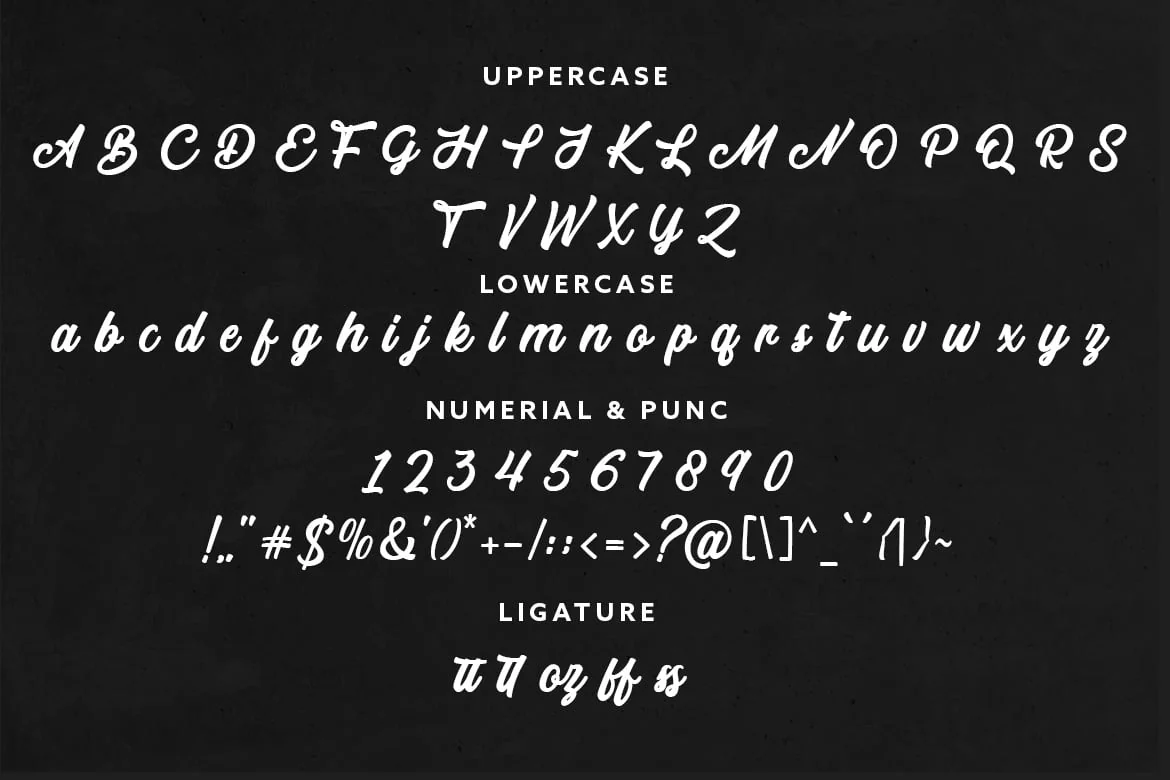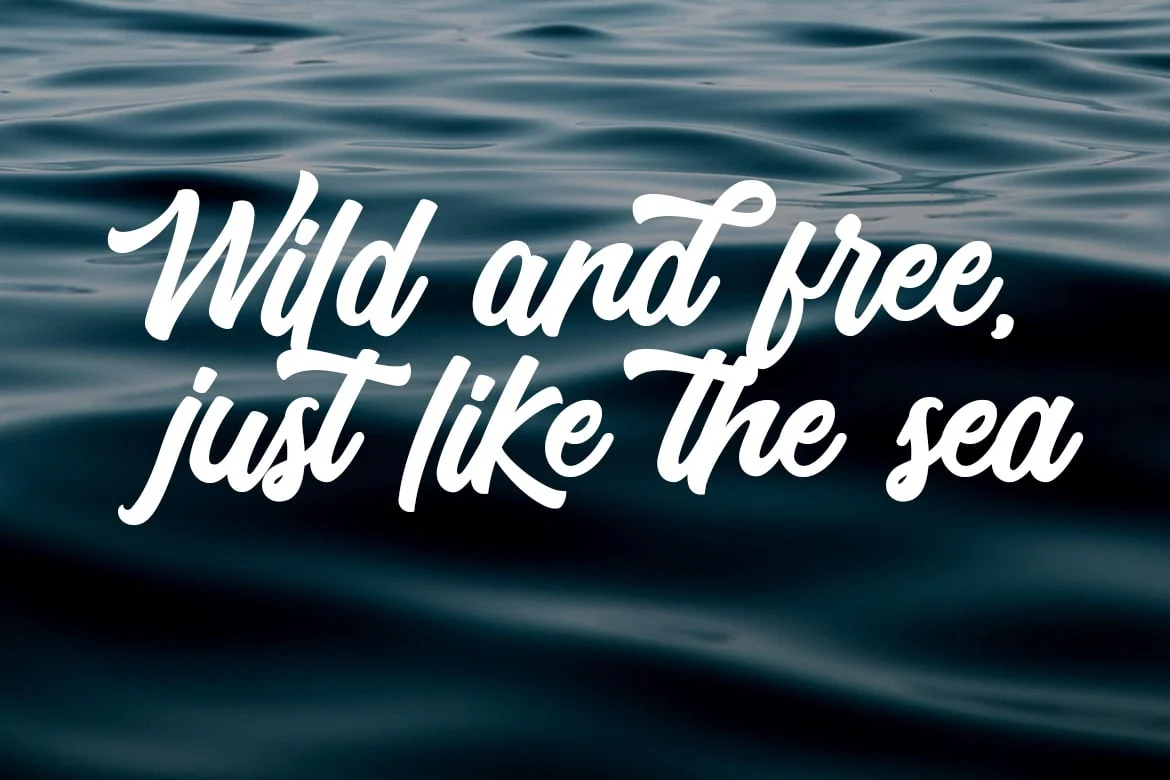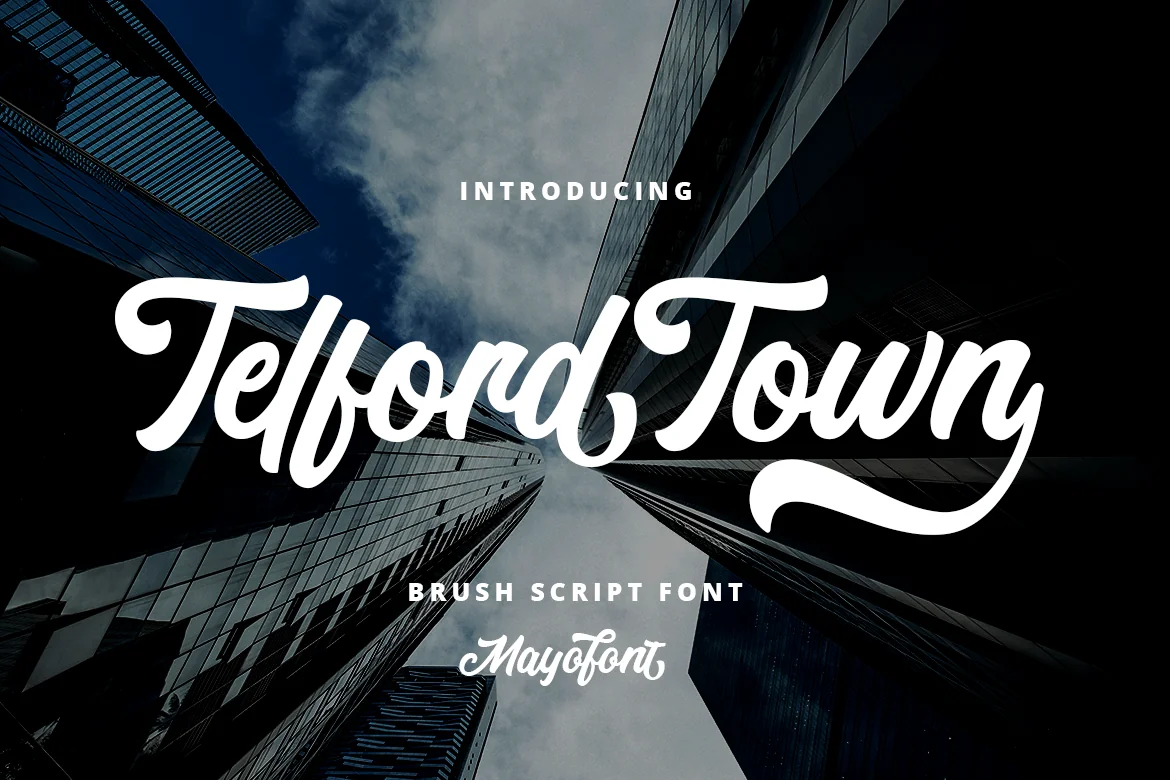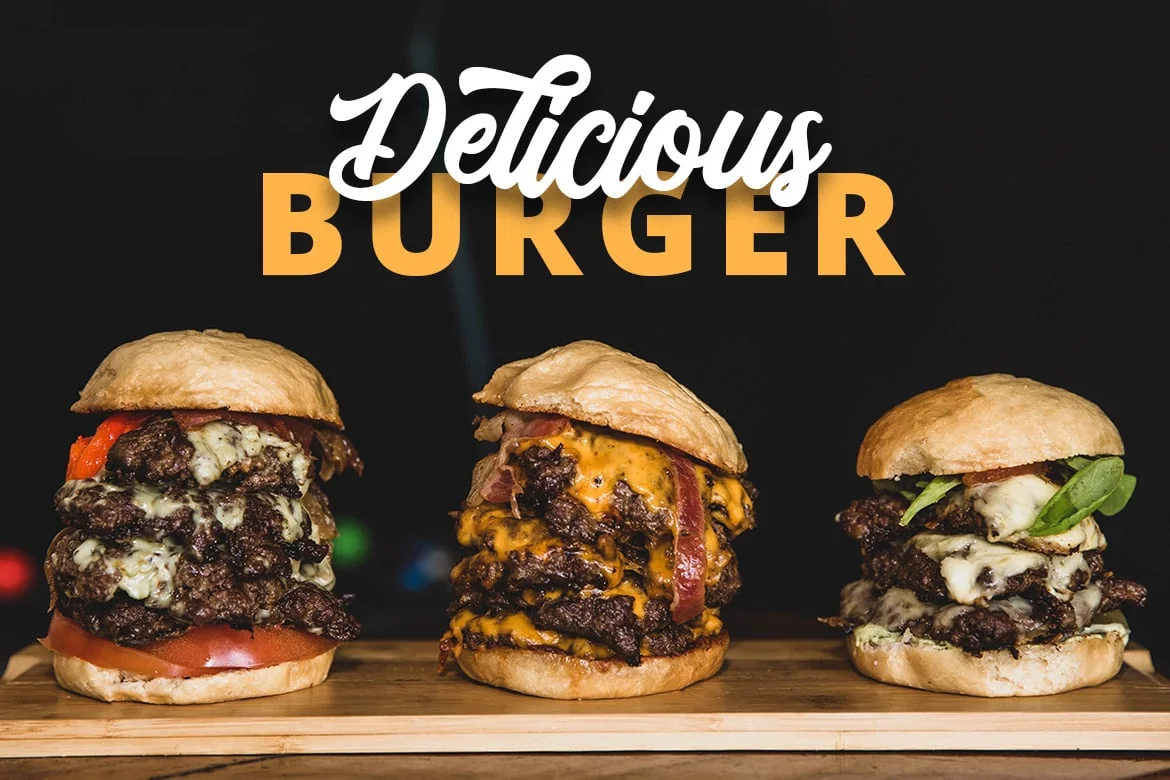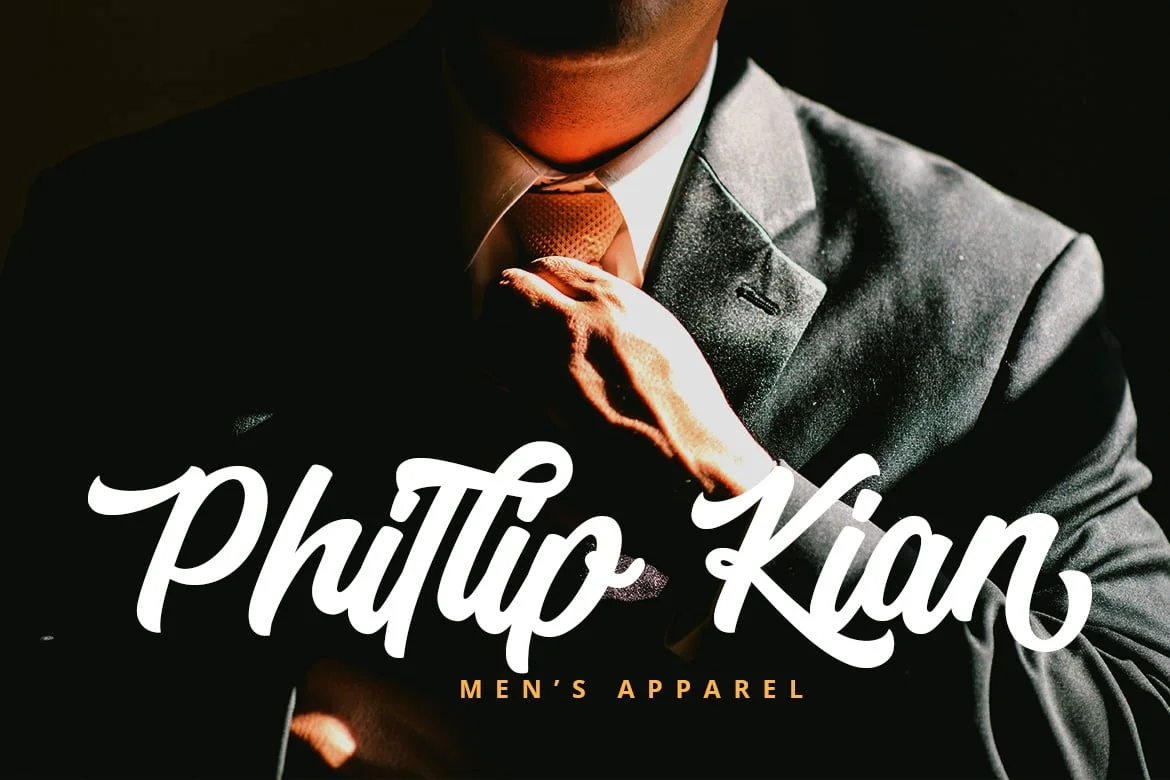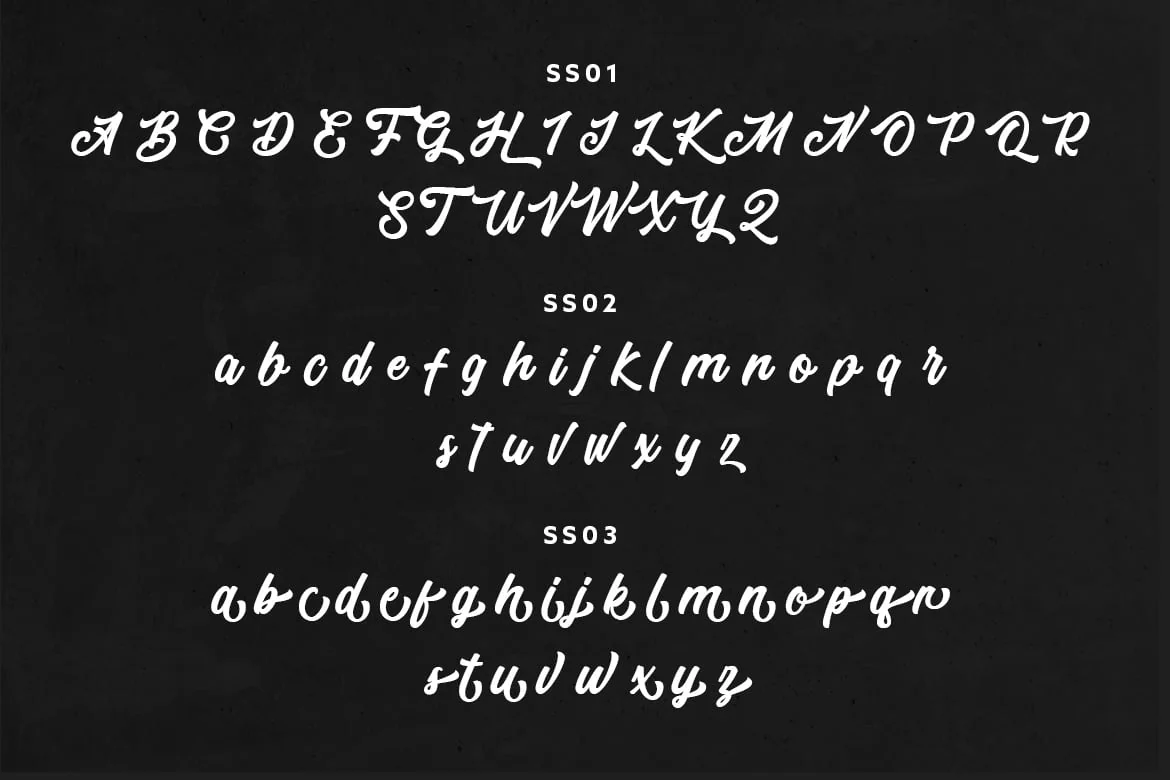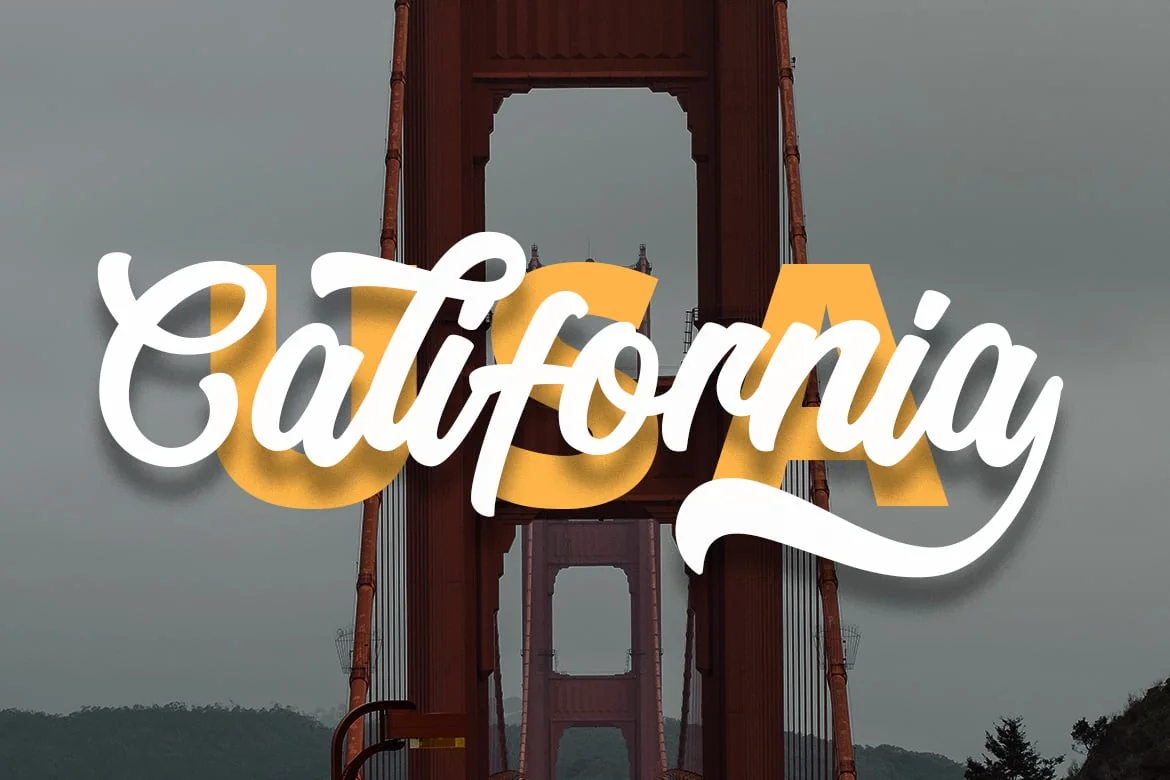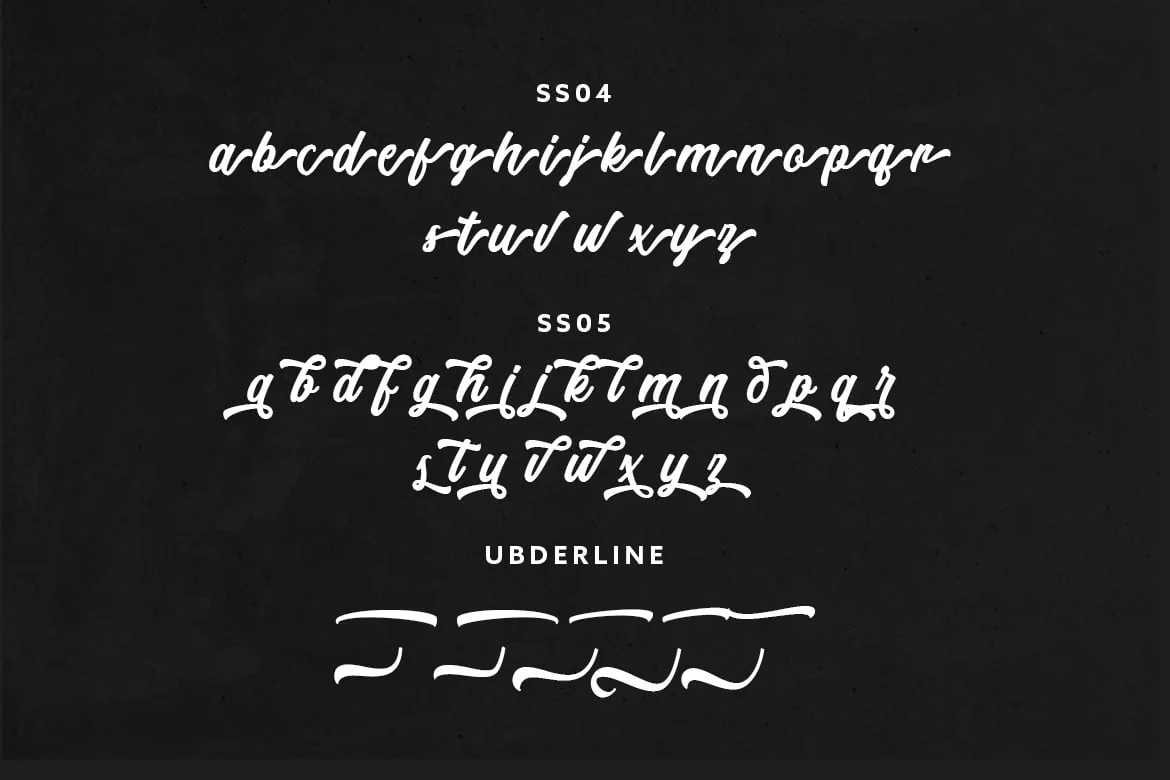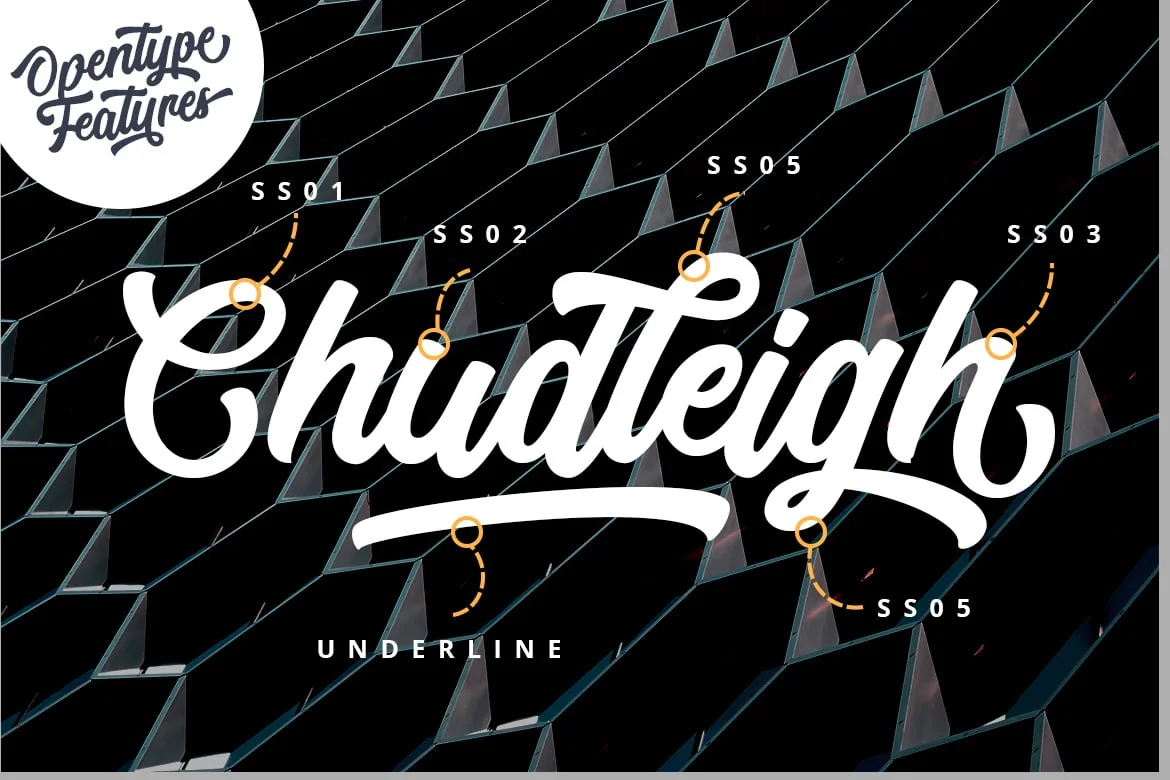
Telford – Script Bold Font
Telford Town Font is a very versatile handwritten font with lots of extra stylish characters that will help turn any word into a unique Logotype in seconds. You can use this font in a wide range of works such as logos, branding, covers, posters, quotes, product packaging, merchandise, social media and much more!
- 05 stylistic set alternate
- Multilingual Language
To activate underline, type underscore + 1, 2, 3… ex: Coward_7